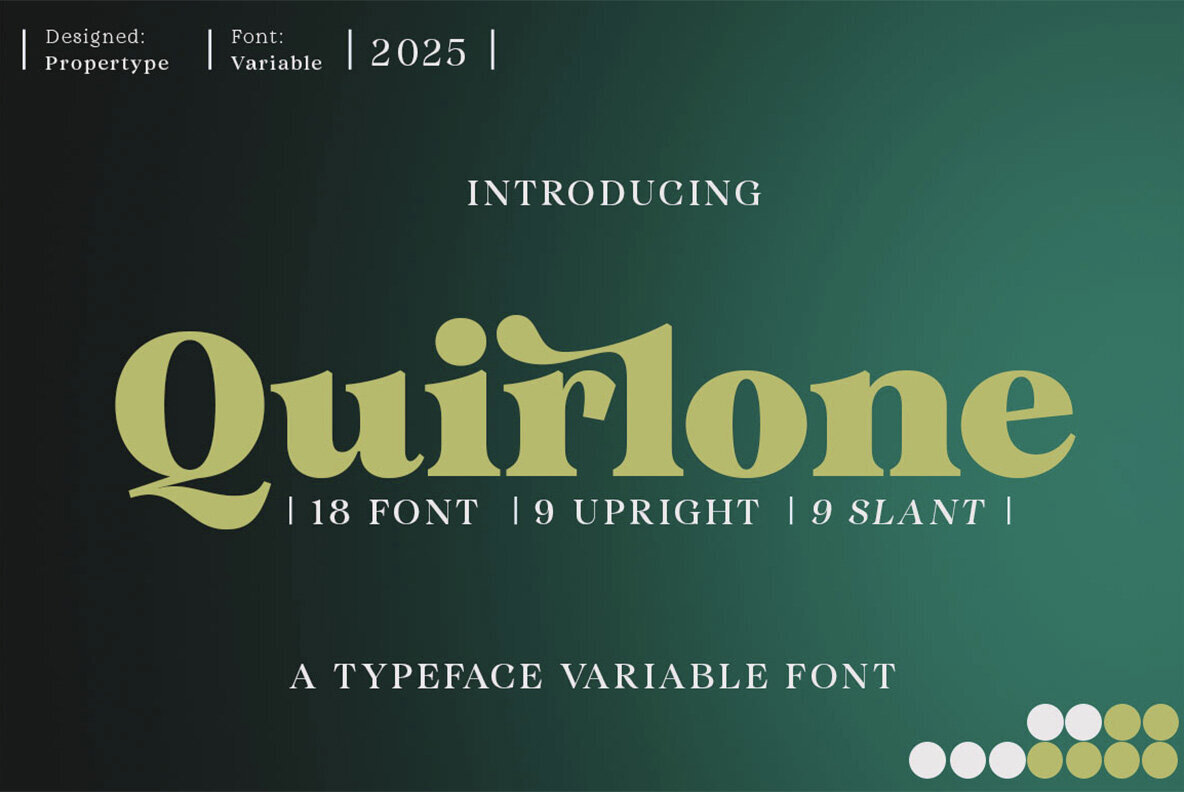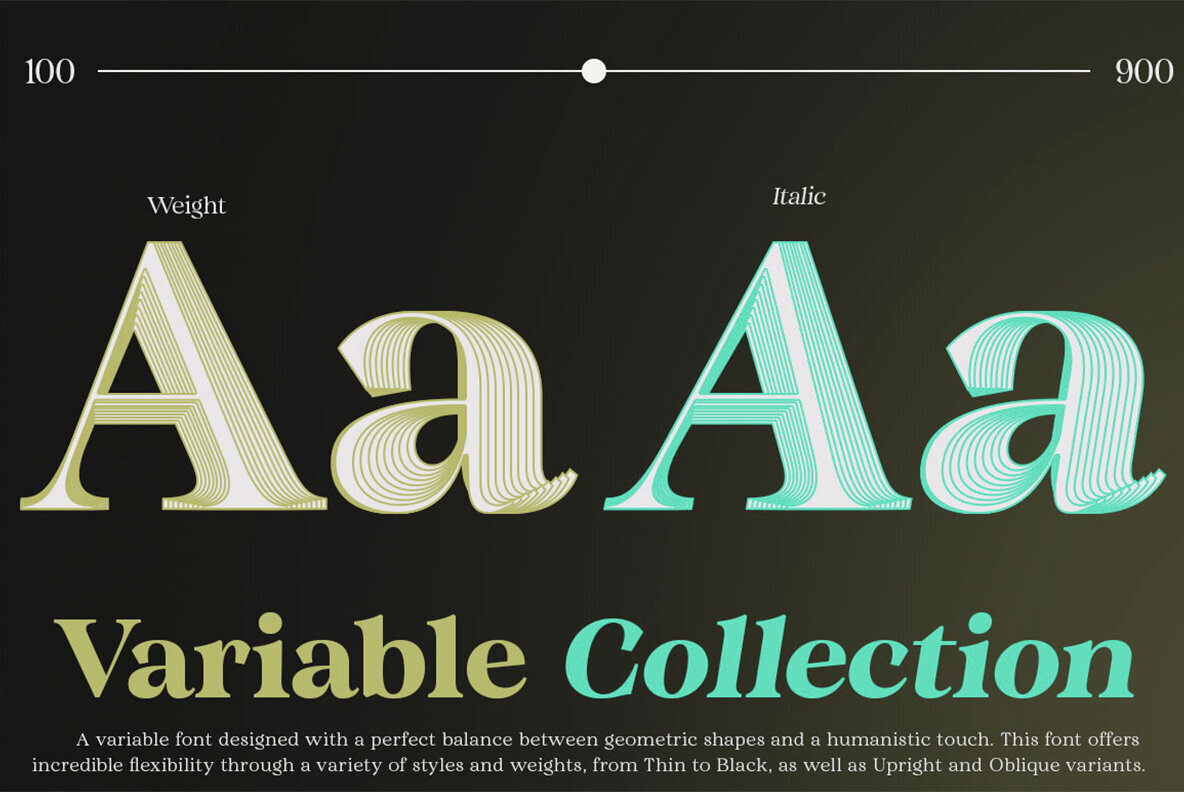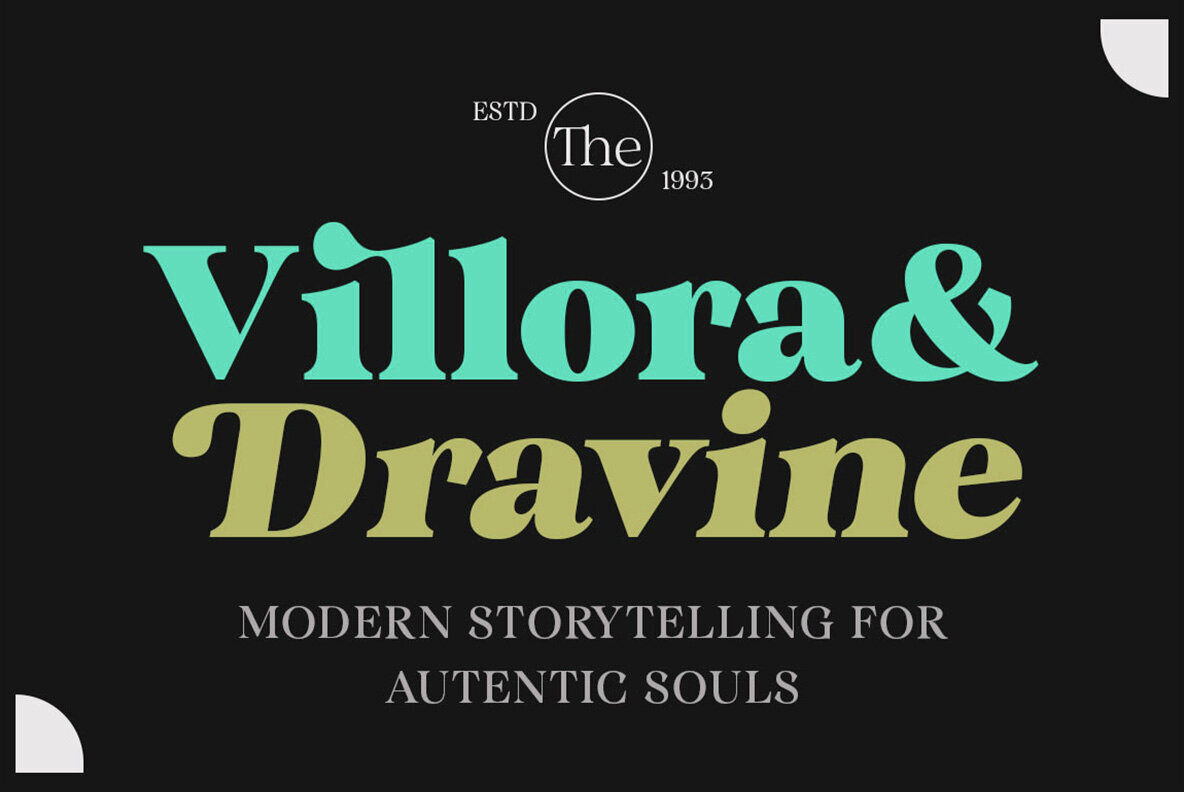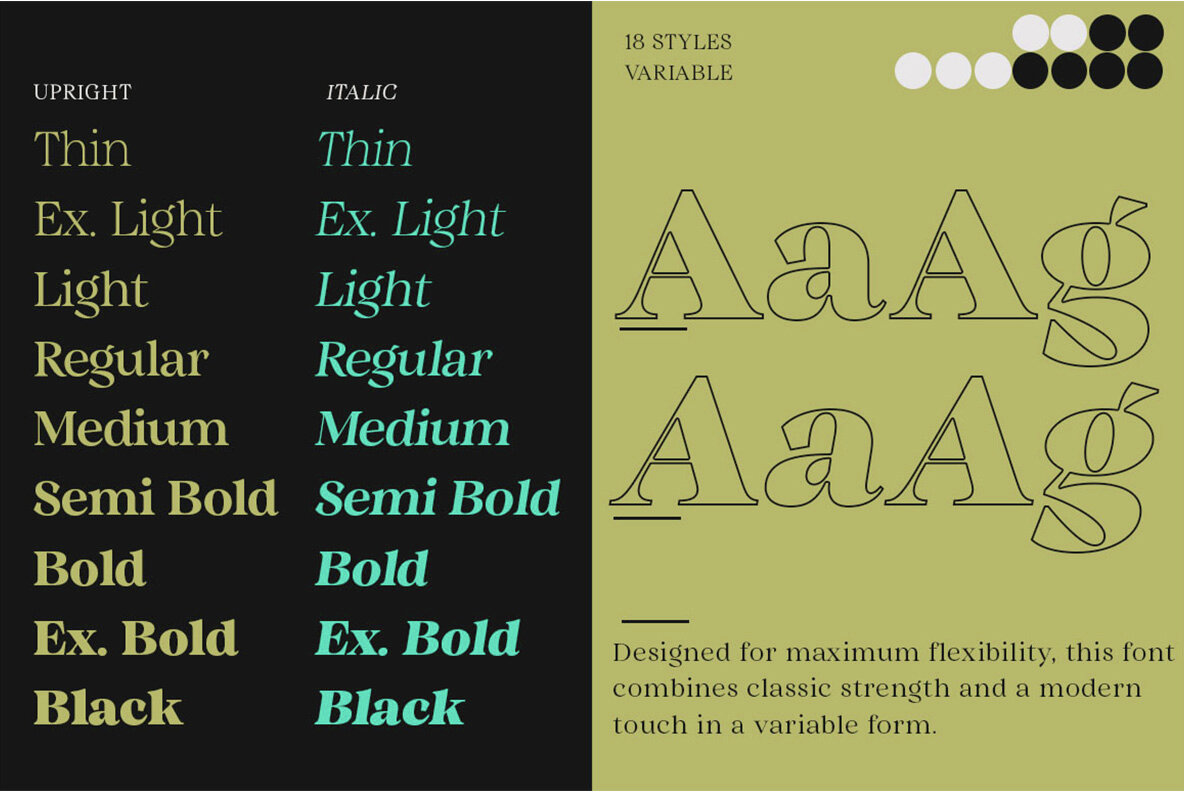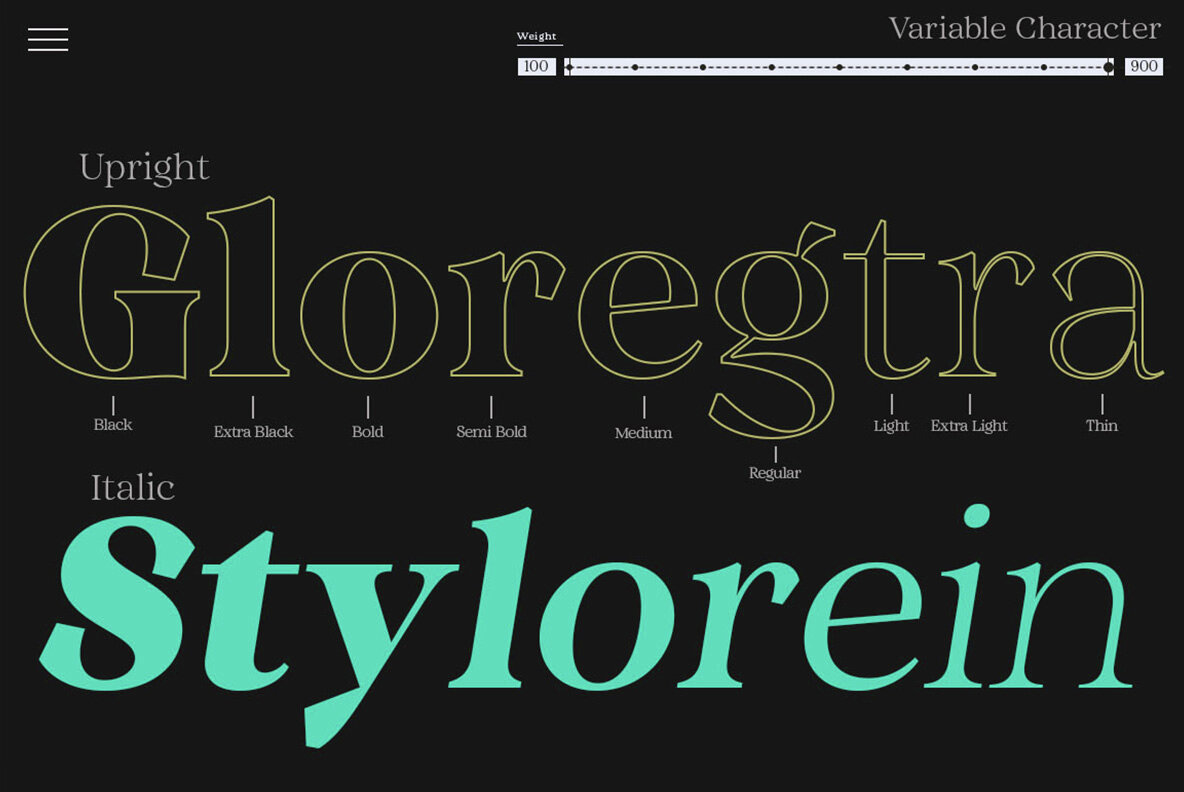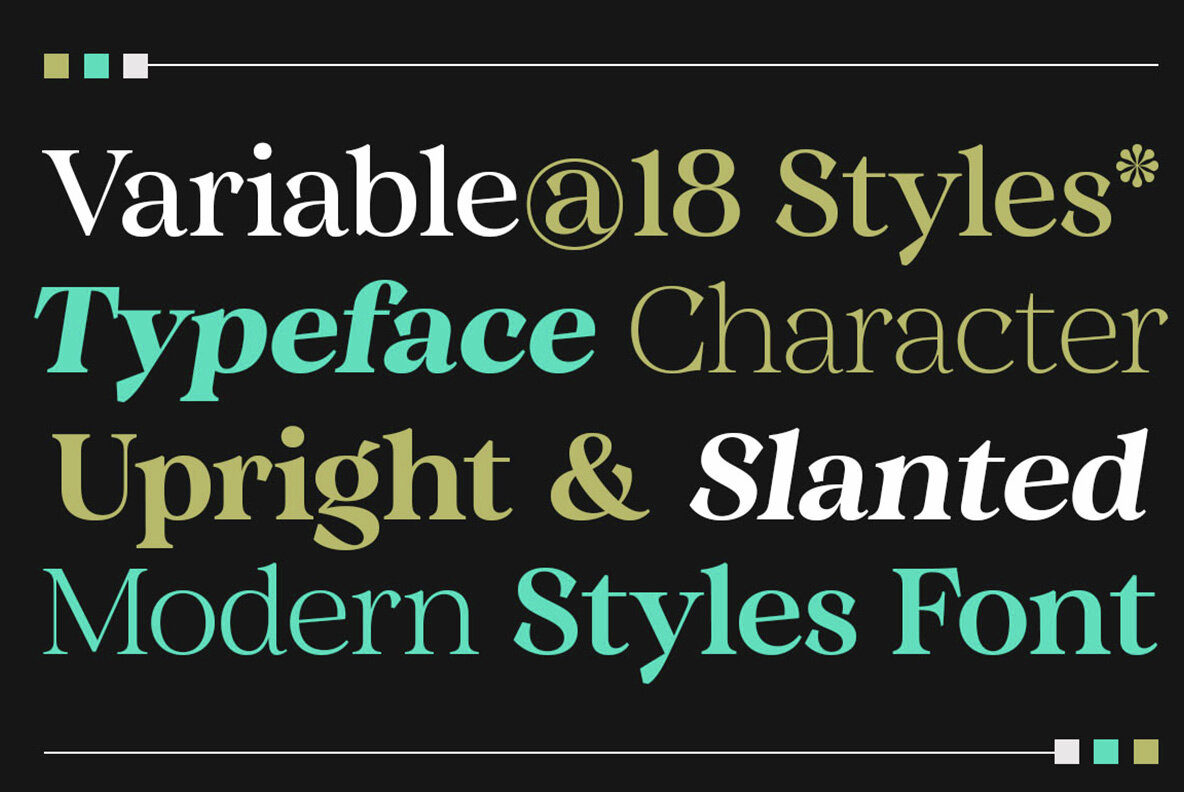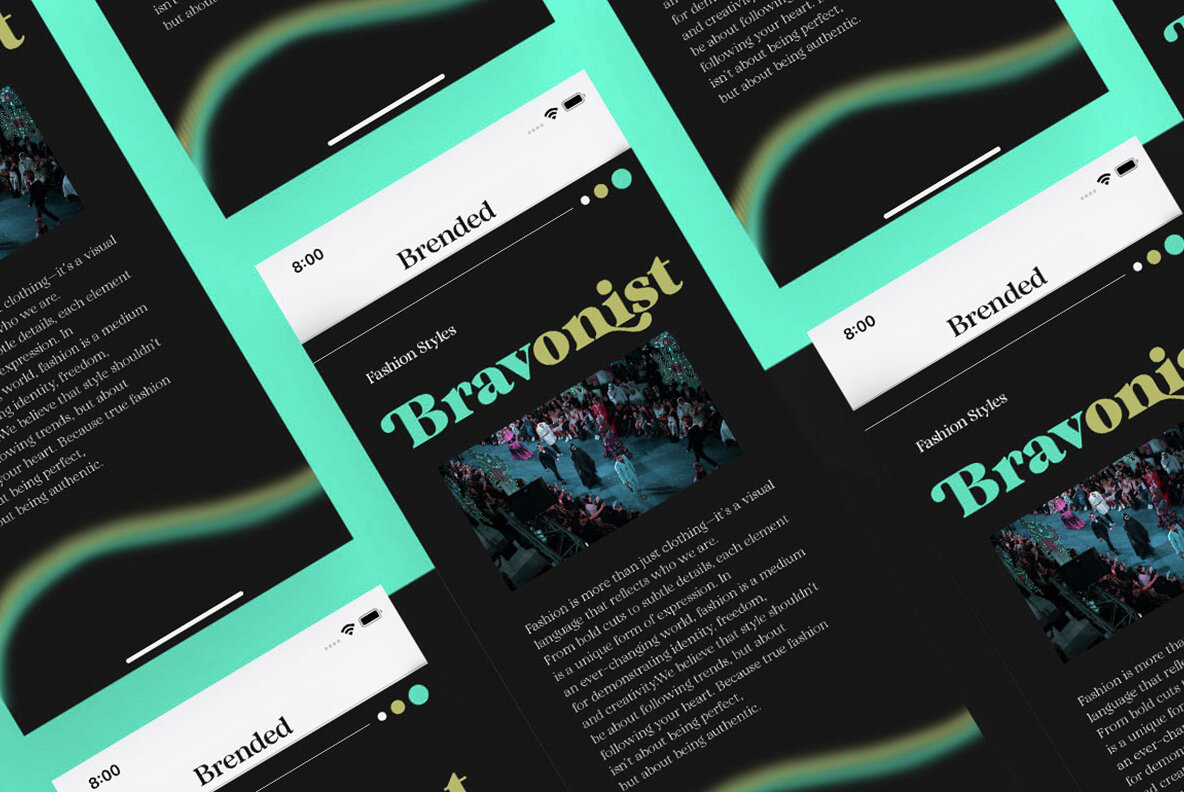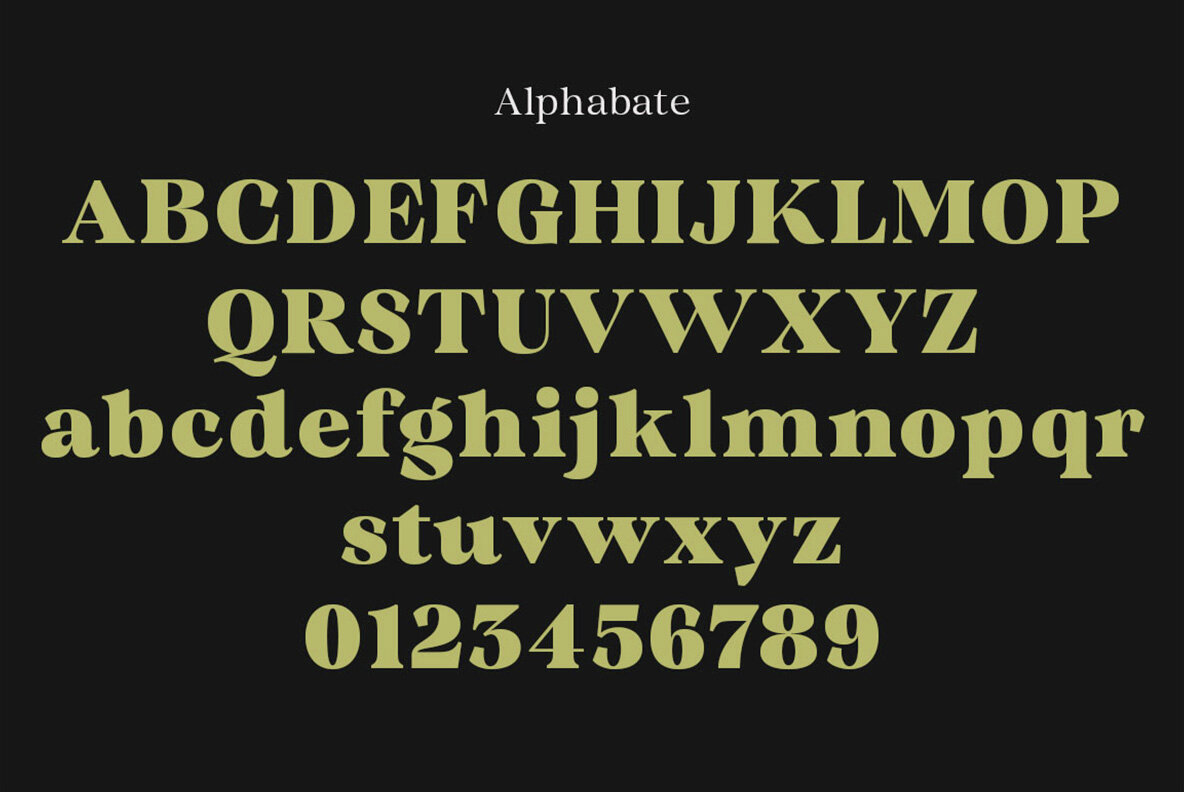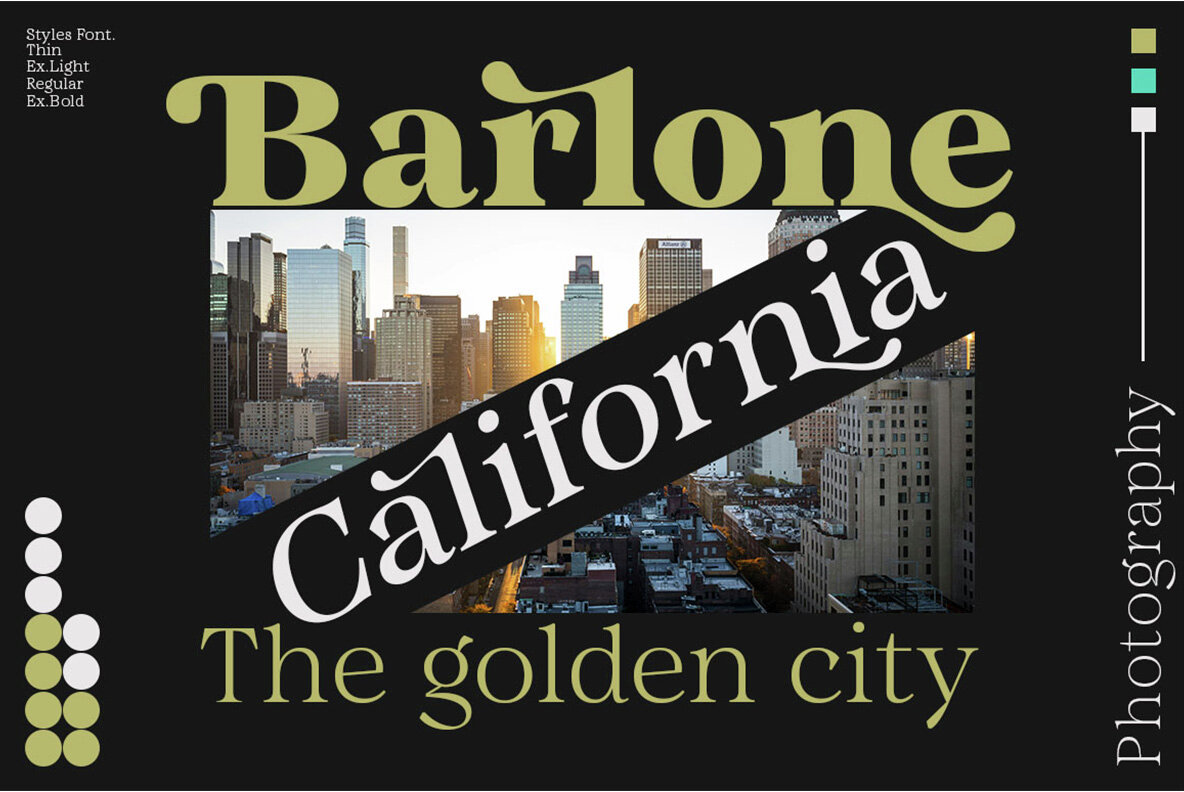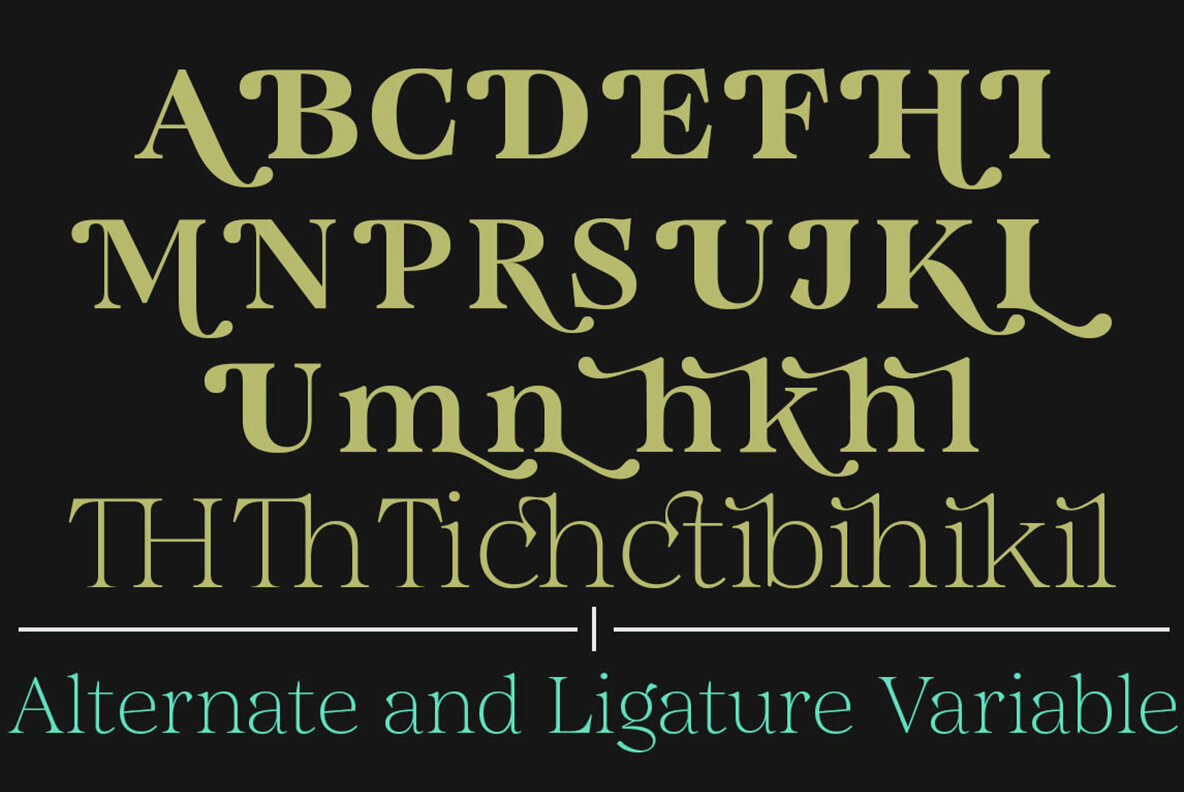
Quirlone Font
Embarking on a journey between transitional and modern aesthetics, Quirlone emerges as a typeface of significant contrast and stylish harmony. It offers a diverse range of weights, from Light to Extra Bold, each designed with precision. The captivating curves of its italic design provide a generous and bold presence, creating an inviting softness in its lighter weights through reduced contrast and optical adjustments. Quirlone thrives across myriad applications, offering a breadth of style suitable for editorial work, branding initiatives, or comprehensive text compositions. Whether for logo design, packaging, or magazine headlines, this typeface lends itself fluidly to a wealth of creative uses.Quirlone: A Typeface of Contrasts and Elegance
Versatile Typographic Design